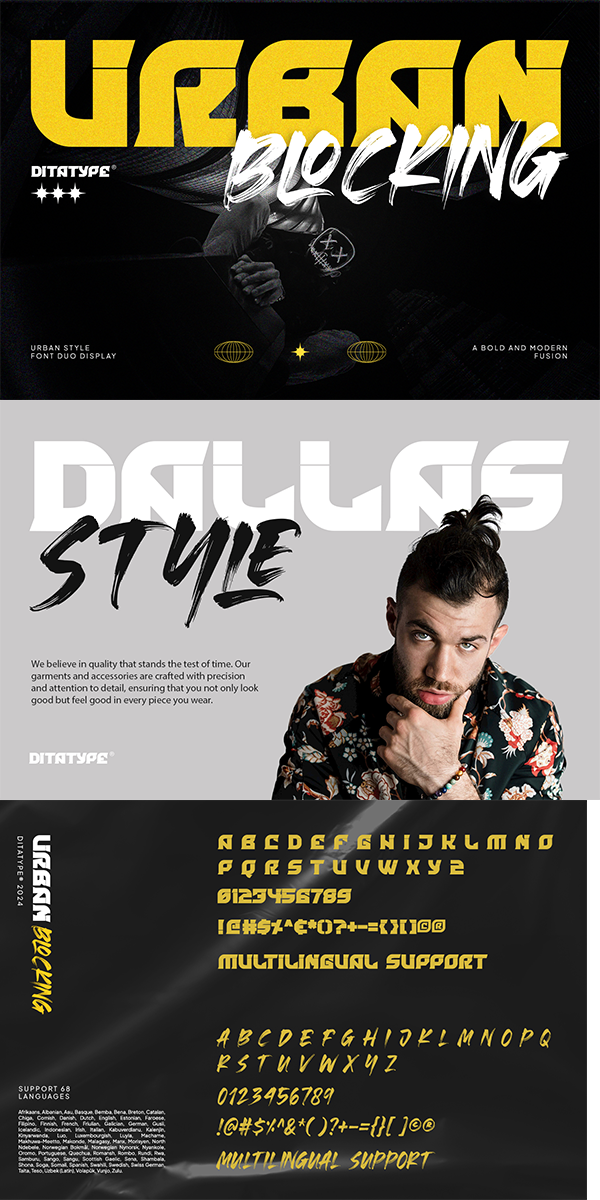
Urban Blocking Font
About Urban Blocking
Urban Blocking is a dynamic duo font that combines the boldness of display fonts with the expressive strokes of brush fonts. The display font in Urban Blocking is made in uppercases and a bold weight. Each letter is meticulously crafted with clean lines and sharp angles, creating a modern and urban aesthetic.
Complementing the display font is the brush font, which also boasts uppercases and a bold weight. However, the brush font adds a touch of texture and spontaneity to the mix, with expressive strokes and rough edges. Together, these two fonts in Urban Blocking create a harmonious balance between boldness and expressiveness. In addition, enjoy the features here.
-Splatter
Urban Blocking fits in headlines, logos, posters, flyers, branding materials, greeting cards, print media, editorial layouts, and many more designs. Find out more ways to use this font by taking a look at the font preview.